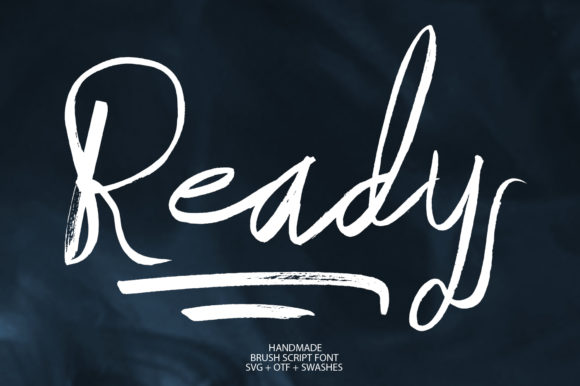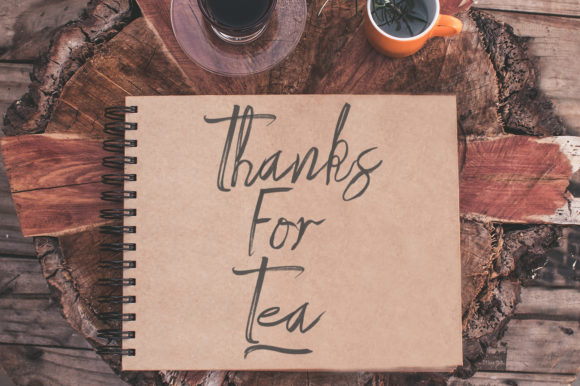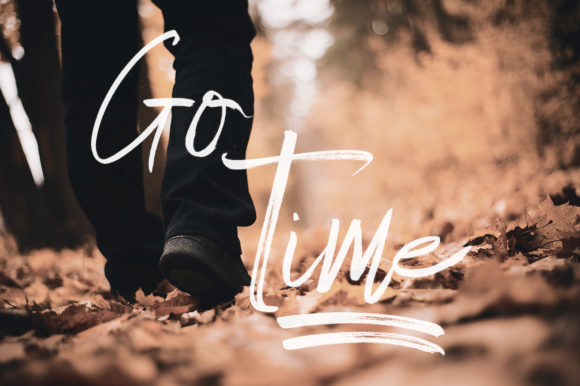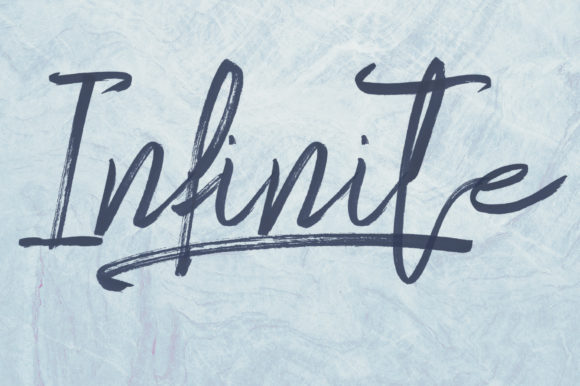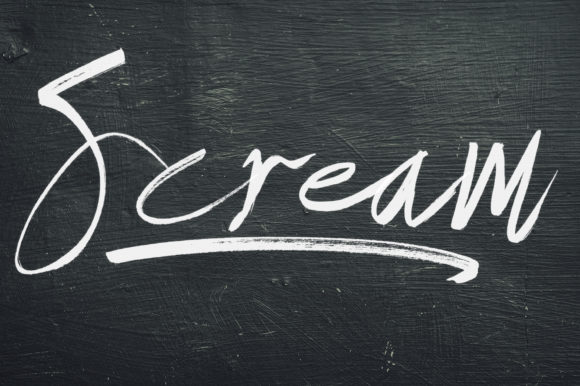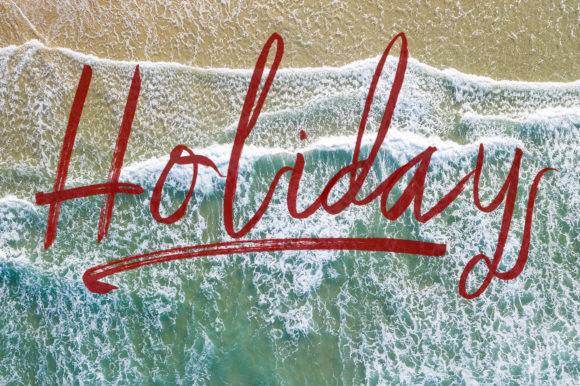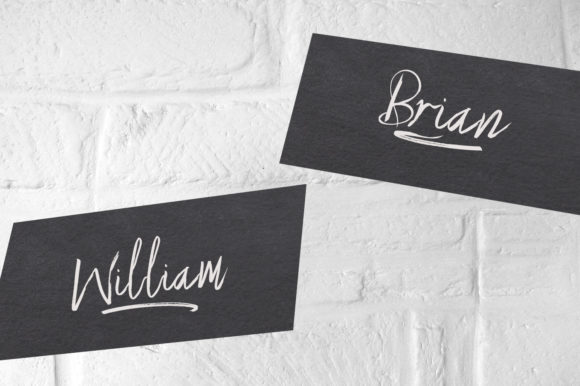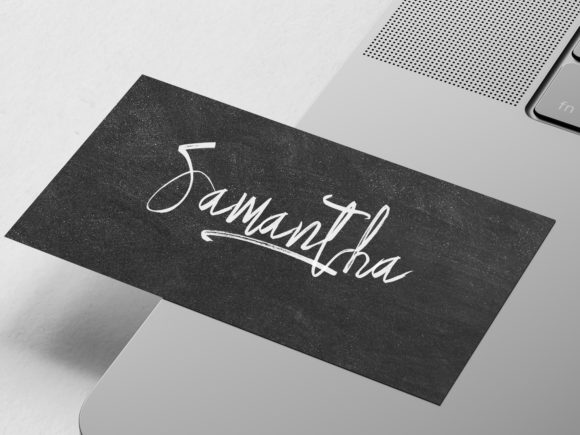
Ready Font
About Ready Font
Ready is a playful and authentic handwritten font that’s easily recognizable. It contains additional swashes and also comes in an SVG version.